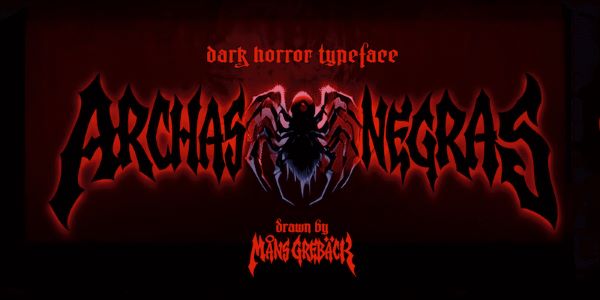
Archaz Negras Font
Archaz Negras by Måns Grebäck is a free Halloween serif display freaky font with a deeply elegant yet darkly atmospheric character — its high-contrast strokes and sharply pointed serifs creating a freaky font that feels as at home on a gothic novel cover as it does on a Halloween poster. With an impressive 988-glyph character set offering exceptional language support, it is remarkably versatile for a thematic display font. Available free for personal use; commercial licensing via mansgreback.com.